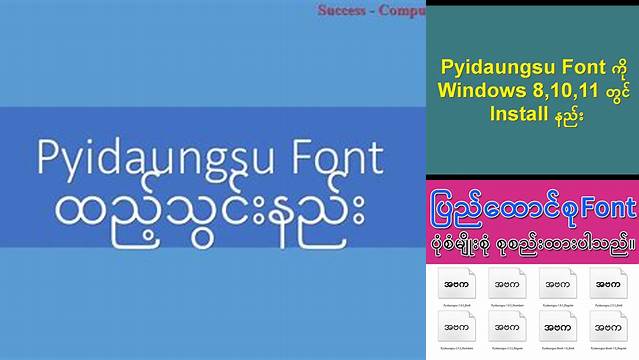
1. What is Pyidaungsu Font?
Before we get started, let's talk about what Pyidaungsu font actually is. Pyidaungsu is a Unicode font designed to support various scripts used in Myanmar. It's crucial for displaying Burmese script correctly, especially if you're dealing with documents, websites, or applications in Burmese. The font is designed to be comprehensive, covering a wide range of characters and symbols needed for accurate representation. Using the right font ensures that text is legible and that the intended meaning is conveyed without errors. Without Pyidaungsu, text can appear as boxes or garbled characters, making it impossible to read. Therefore, having this font installed is essential for anyone working with Burmese language content. This makes it a must-have for anyone wanting to properly read and write in Burmese on their computer.
2. Why Use Pyidaungsu Font on Windows 10?
So, why should you bother with Pyidaungsu font on Windows 10? Well, if you frequently interact with Burmese language content, it's a total game-changer. Imagine trying to read a Burmese website or document without the correct font – it would be a mess of squares and question marks! Having Pyidaungsu installed ensures that all Burmese text displays correctly, making your life a whole lot easier. Plus, it's not just about reading; if you ever need to write in Burmese, this font is essential. Whether you're a student, a professional, or just someone who enjoys keeping in touch with Burmese-speaking friends and family, Pyidaungsu font is a valuable addition to your Windows 10 system. It improves readability and functionality, allowing for seamless communication and content consumption. Don't get left behind with unreadable text; get Pyidaungsu font today!
30. Pyidaungsu Font: A Community Effort